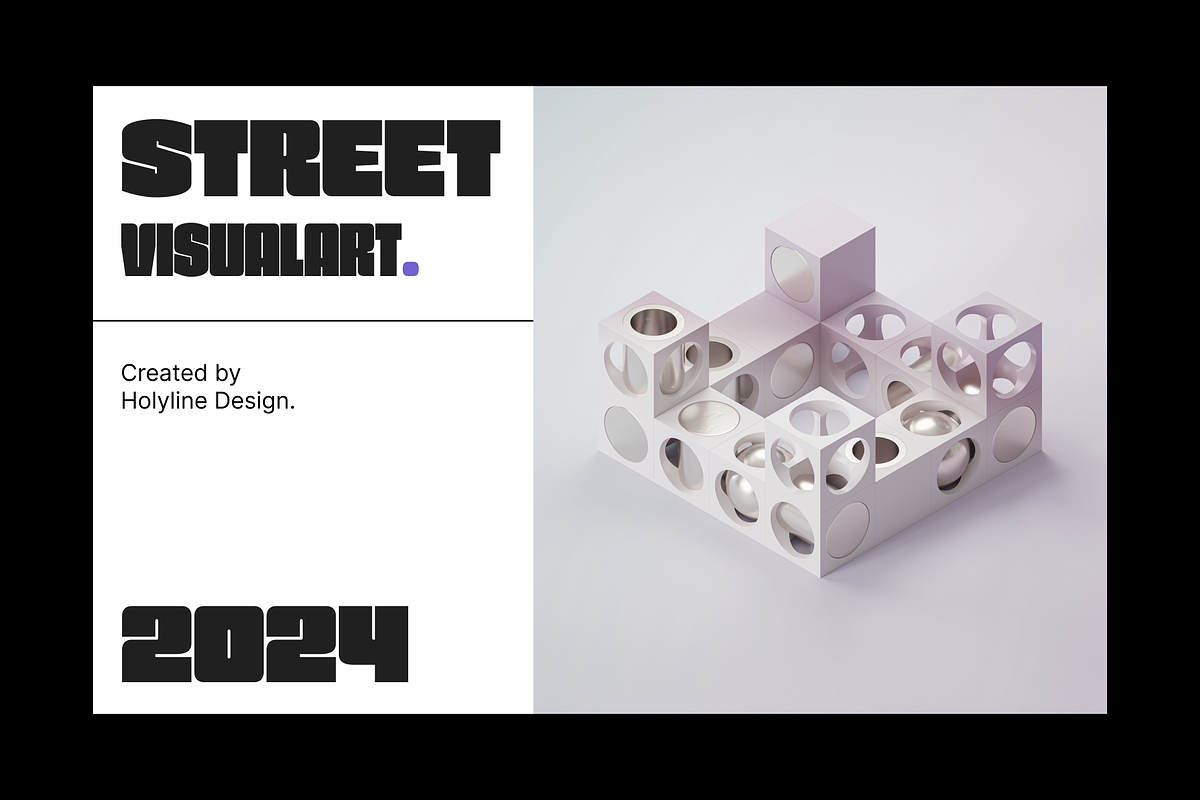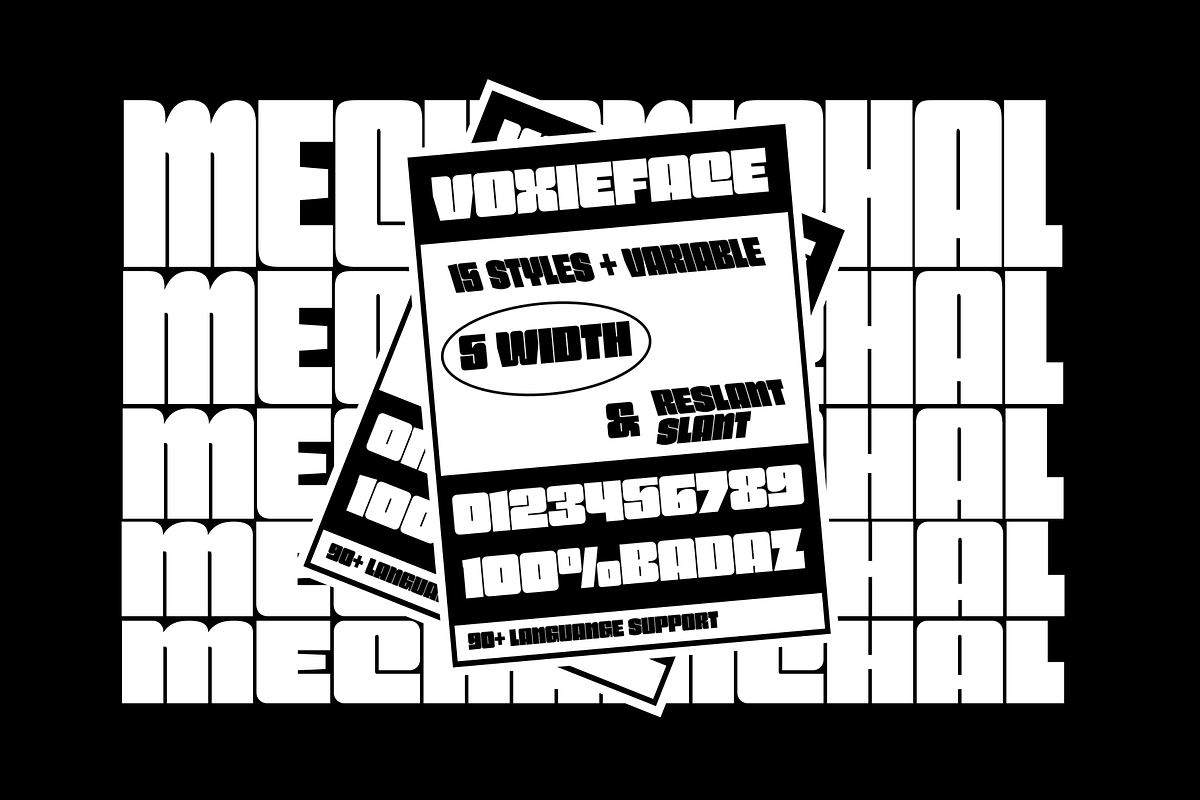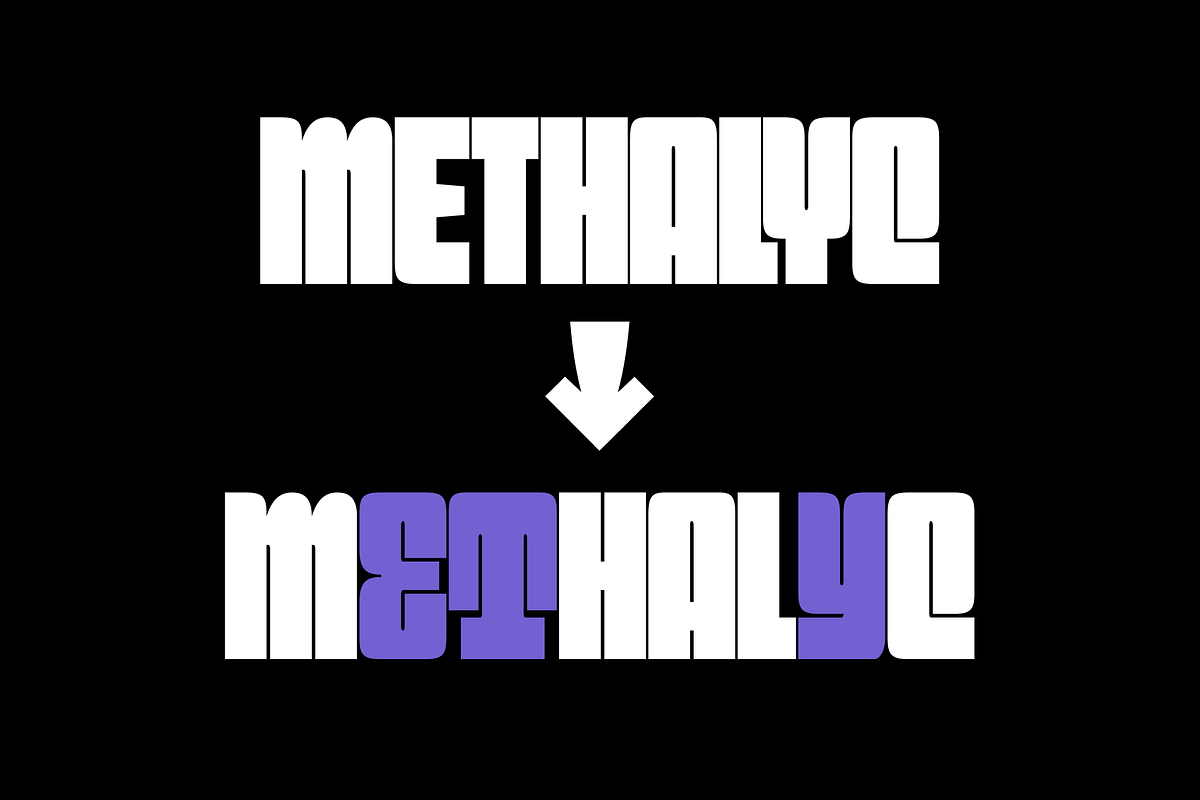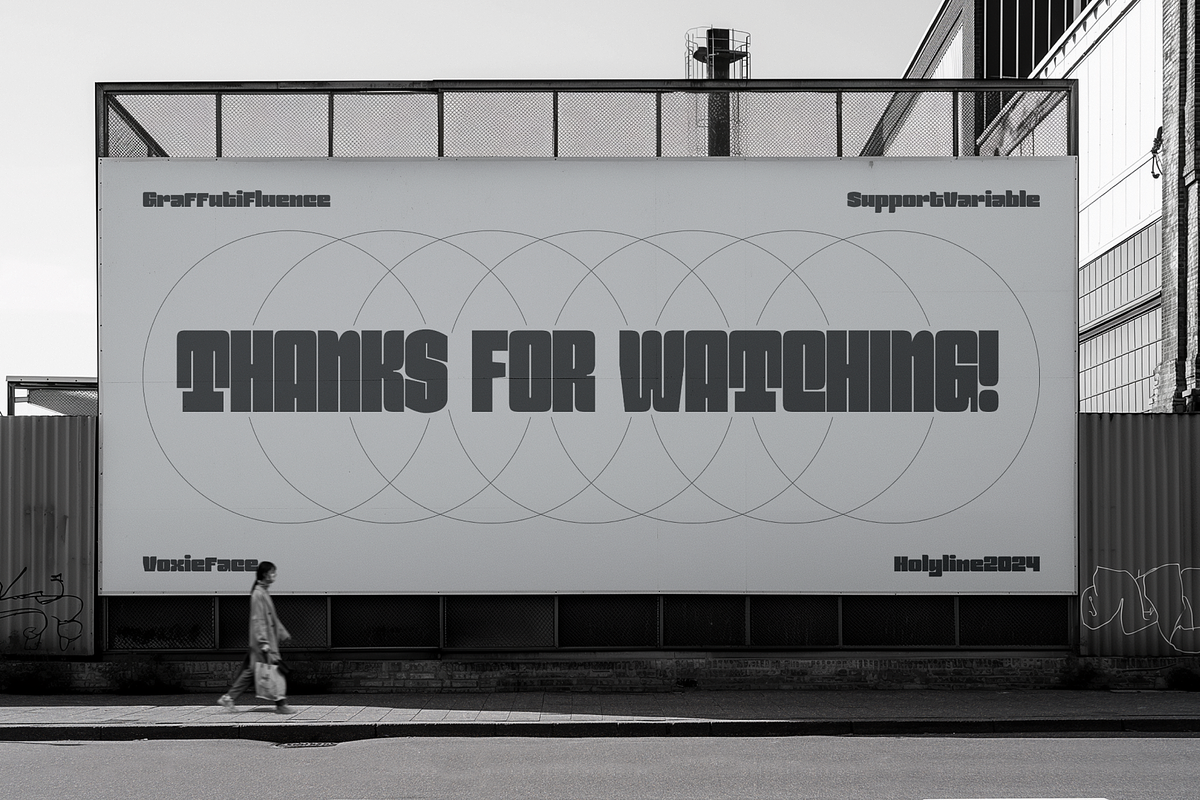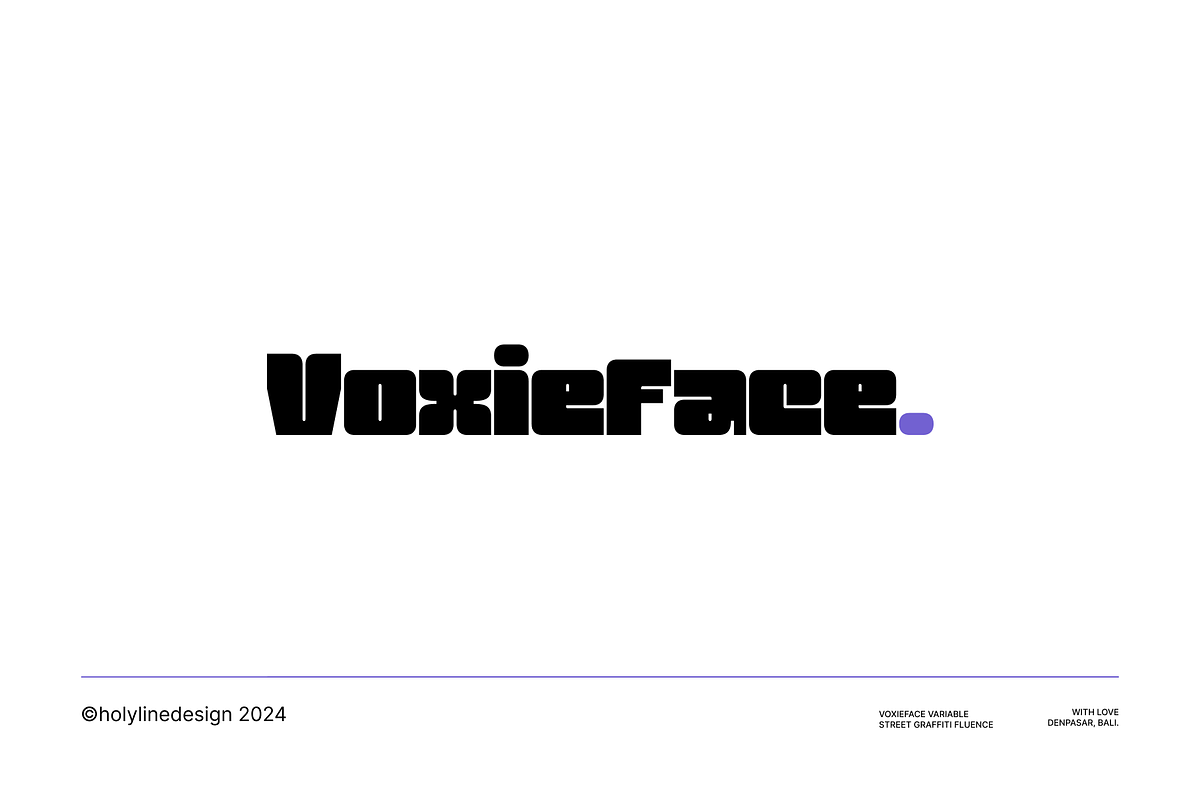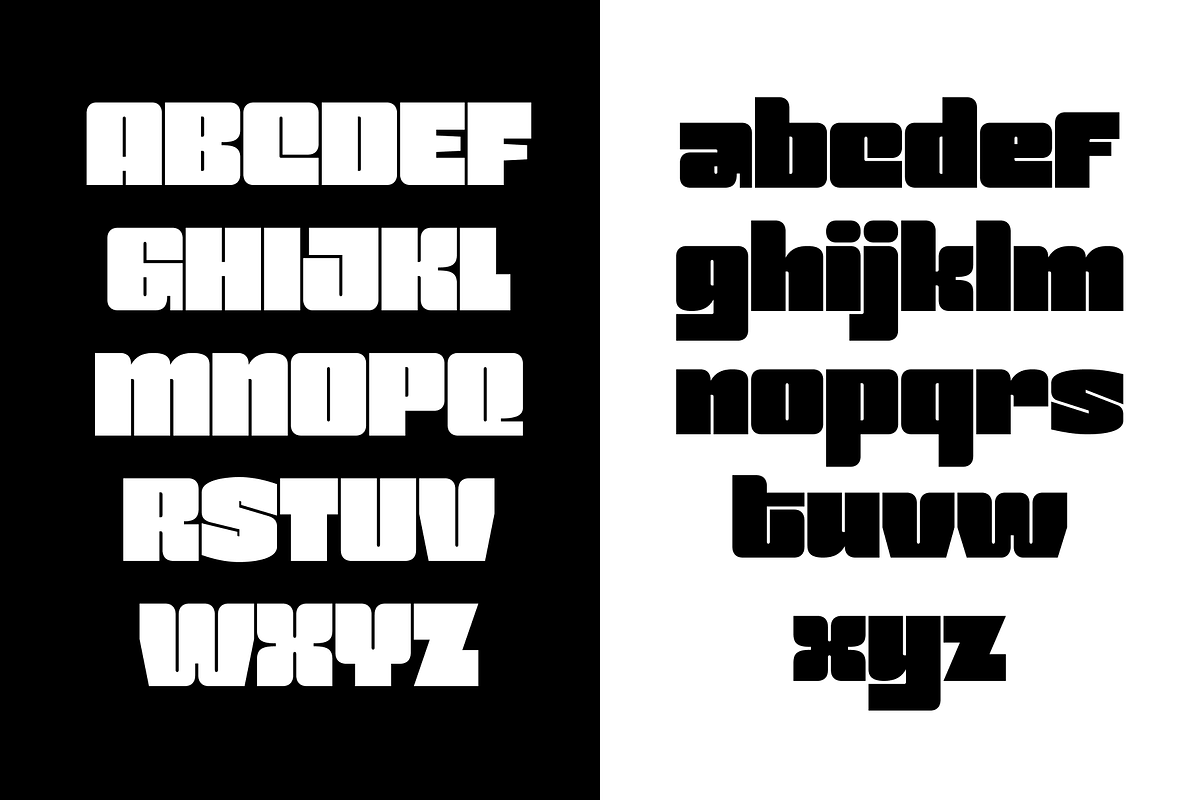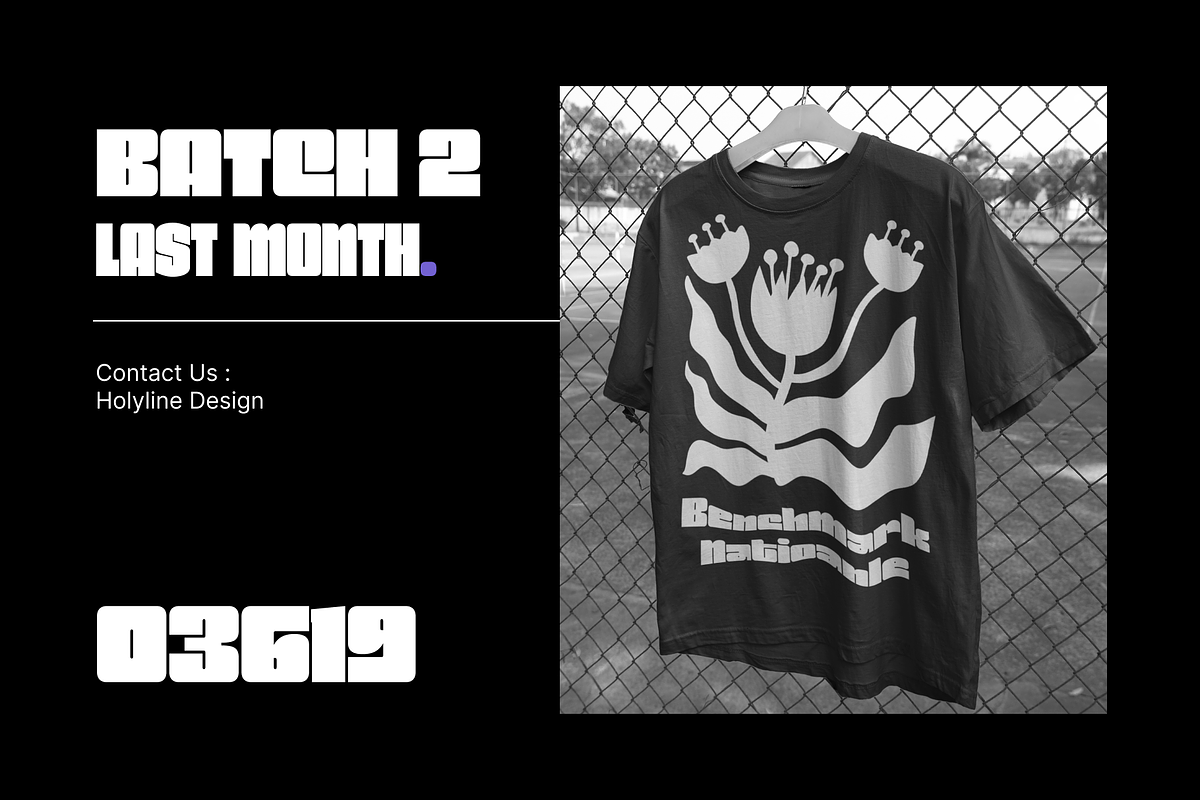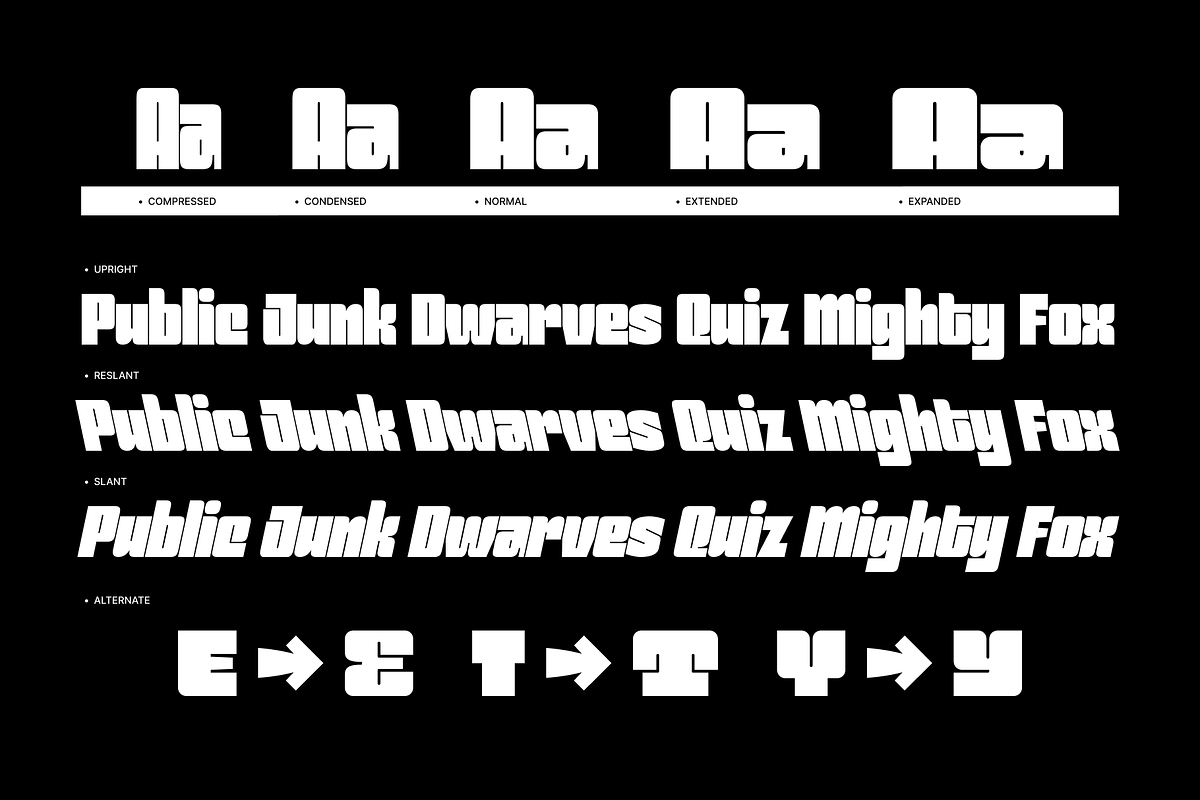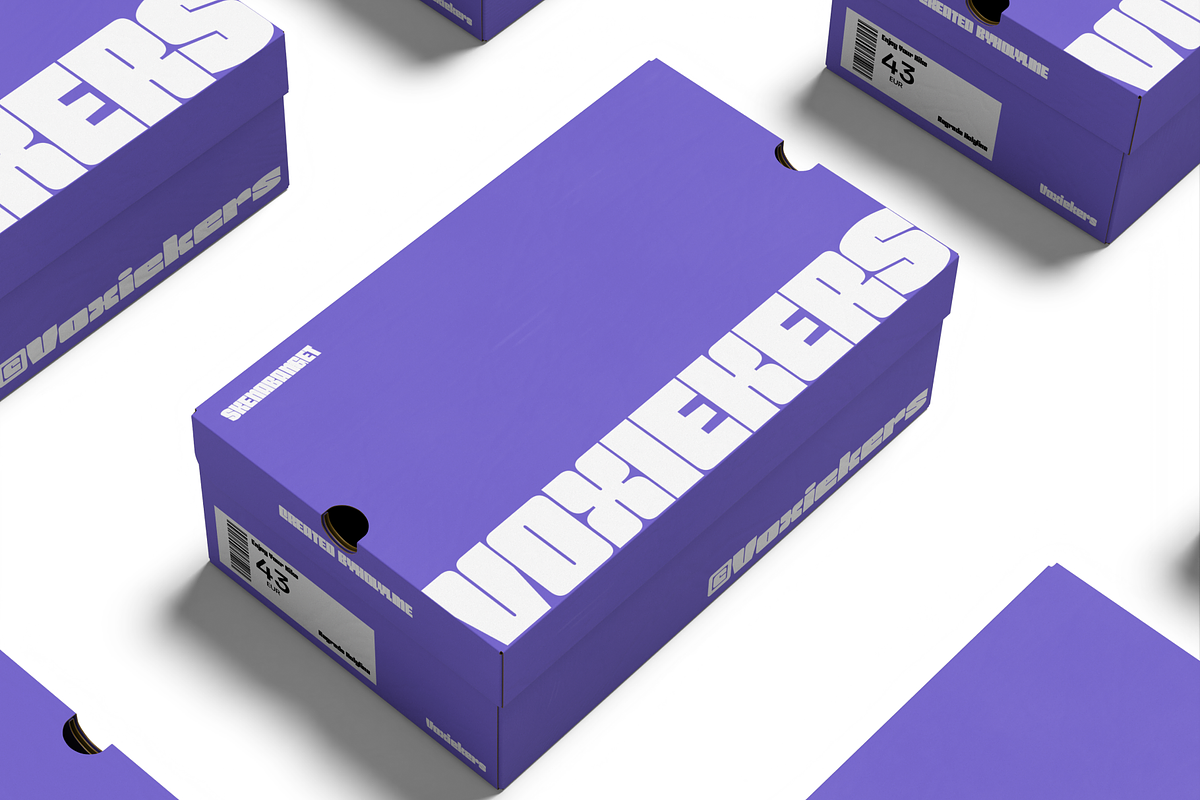
Voxieface Display Family
Voxieface is a dynamic sans serif font, inspired by the bold energy of the graffiti scene and the creative freedom of street art. It captures the rebellious, urban vibe of the streets while maintaining a sleek, modern look, making it perfect for contemporary design projects. This versatile font comes in five different widths, giving you the flexibility to experiment with layout and spacing. Additionally, it includes slant and reslant styles, offering even more creative possibilities to play with direction and flow. Each character is crafted to reflect the raw, expressive style of graffiti, making Voxieface ideal for posters, branding, and urban-inspired designs. Perfect for projects that require an edgy, artistic touch, this font is a celebration of street culture with a polished, professional finish.